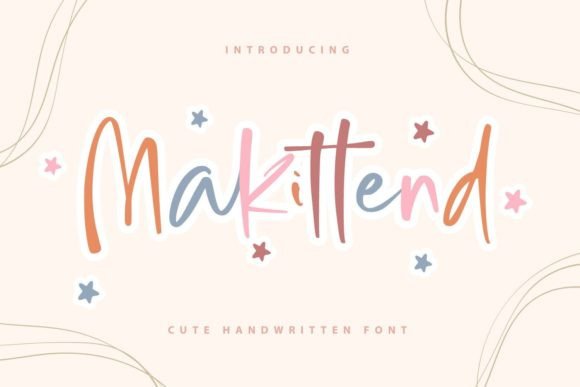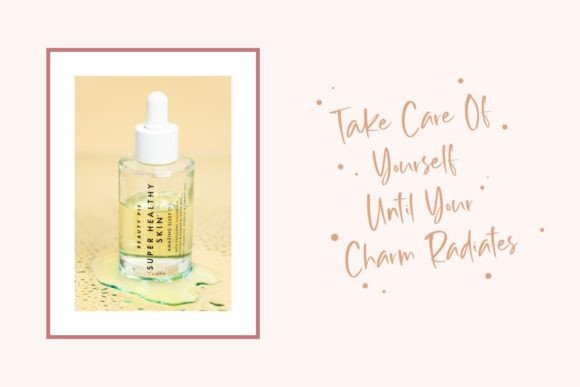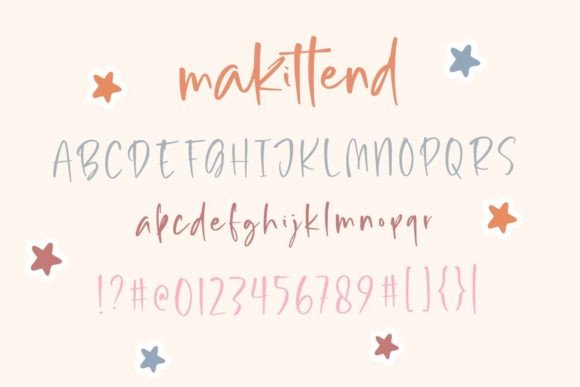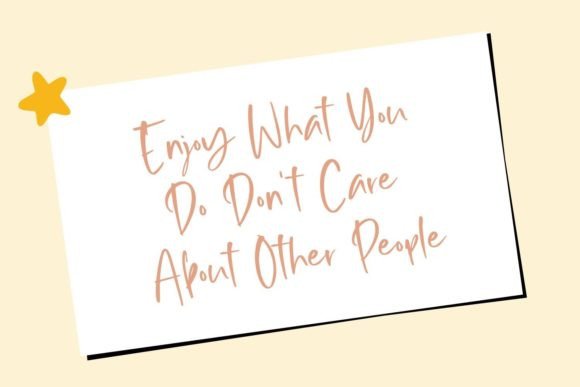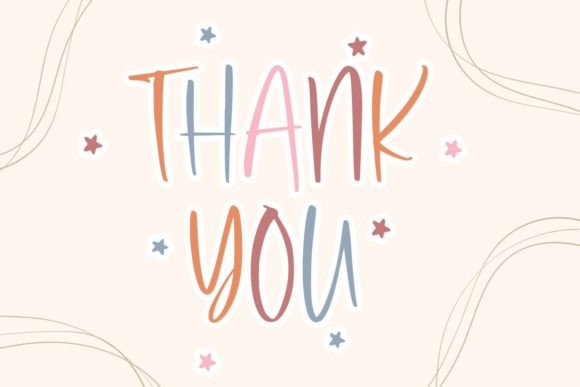
Makittend Font
About Makittend Font
Makittend is a stylish and relaxed handwritten font that brings a touch of coolness to any design. Its casual vibe makes it a versatile addition to your font collection, enhancing a wide range of creative projects. Regardless of the topic, Makittend has the power to enhance your designs and elevate them to a new level of creativity and uniqueness.
This font’s laid-back charm adds a modern and trendy feel to your projects, making it suitable for various applications. Whether you’re designing logos, branding materials, social media posts, posters, invitations, or any other creative content, Makittend effortlessly injects a sense of casual sophistication.
The versatility of Makittend lies in its ability to adapt to different themes and styles. It complements both playful and professional designs, making it a valuable asset for designers working on diverse projects. Its handwritten quality adds a personal touch, making your creations feel more authentic and engaging to the audience.
Incorporating Makittend into your designs not only enhances their visual appeal but also infuses them with a sense of character and individuality. Its cool and casual demeanor makes it a standout choice for designers looking to create contemporary, on-trend visuals that resonate with modern audiences.
Whether you’re working on digital or print projects, Makittend serves as a reliable and stylish font choice, enriching your designs and making them visually appealing. Embrace the laid-back vibe of Makittend, and watch your creations come to life with effortless coolness and creativity.